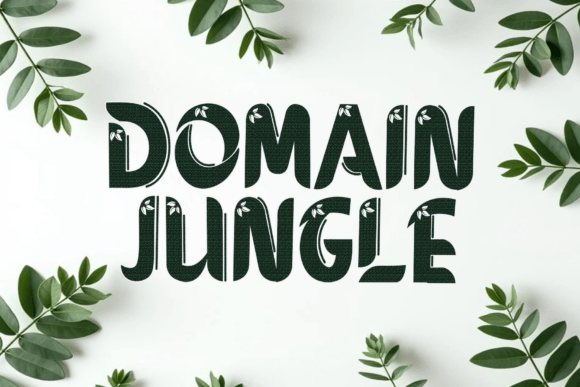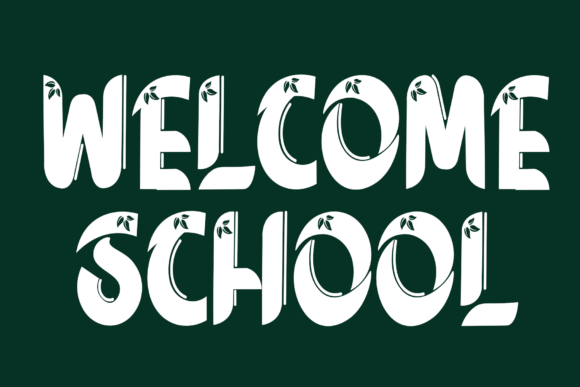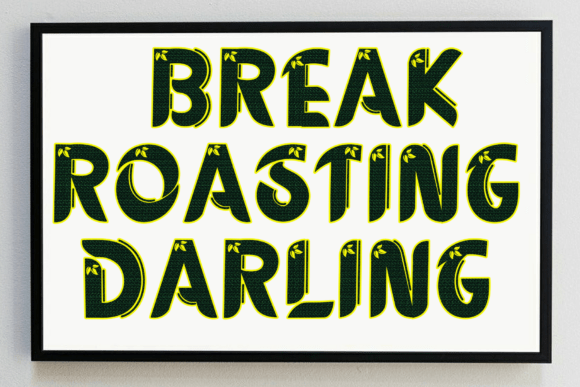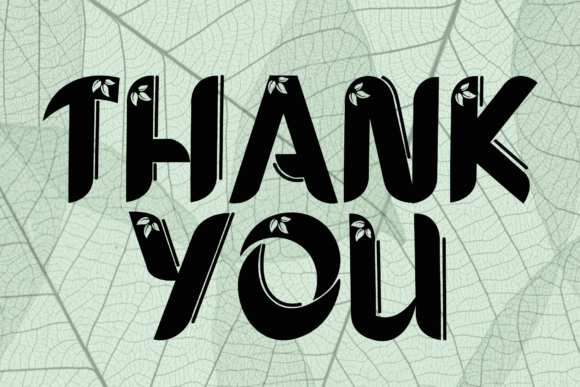
Introduction to Garden Farming Font
Have you ever found yourself surrounded by nature’s beauty, feeling inspired to bring the outdoors in? That’s exactly what happened to me while strolling through a lush garden one sunny afternoon. The vibrant colors, the gentle rustle of leaves, and the sense of serenity all sparked a creative moment that would soon lead me to discover the perfect design companion – the Garden Farming Font.
As a designer, I’m always on the lookout for high-quality, unique fonts that can elevate my creative projects. And that’s exactly what the Garden Farming Font offers – a fresh, friendly display font that perfectly captures the essence of nature. With its playful leaf accents and bold, rounded letterforms, this font is a valuable resource for any designer looking to create eco-friendly branding, packaging, or blog designs that truly stand out.
Key Features of Garden Farming Font
- High-quality design: The Garden Farming Font is carefully crafted to provide a premium look for any creative project.
- Unique characteristics: The Garden Farming Font features a unique, rustic design that is perfect for garden and farm-themed projects, as well as any other creative project requiring a high-quality, natural look.
Honest Review: Garden Farming Font
I recently had the chance to work with the Garden Farming Font, a free download designed to add a touch of natural charm to any creative project. As a designer, I appreciate high quality design resources like this one.
- ✨ What works well: The font’s hand-drawn feel and organic shapes make it perfect for projects related to gardening, farming, or the outdoors. The transparent background also allows for easy layering and customization.
- ✨ What works well: The font’s legibility is excellent, even at small sizes, making it suitable for a wide range of design applications.
- ⚠️ Limited font styles: The Garden Farming Font is a single font family with limited styles, which may not be suitable for projects requiring a lot of font variation.
- ⚠️ Not suitable for complex text: While the font is legible, it may not be the best choice for complex text or body copy, as it can be a bit too casual.
Overall, I think the Garden Farming Font is a great design resource for the right projects. Its high quality and unique design make it a valuable addition to any designer’s toolkit. Just be aware of its limitations and use it accordingly.
The Garden Farming Font is a high-quality design resource ideal for creative projects requiring a unique and rustic touch. This free download is perfect for designers and non-designers alike, offering a versatile and easy-to-use font for various applications.
For optimal use, ensure the font is set to have a transparent background to achieve the desired effect. The Garden Farming Font is ideal for use in gardening-related projects, labels, and invitations, as well as other creative projects requiring a natural and earthy feel.